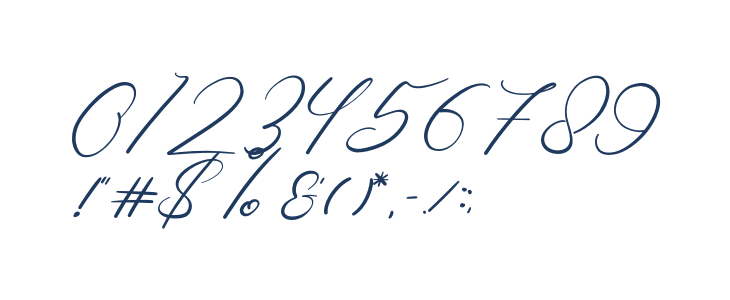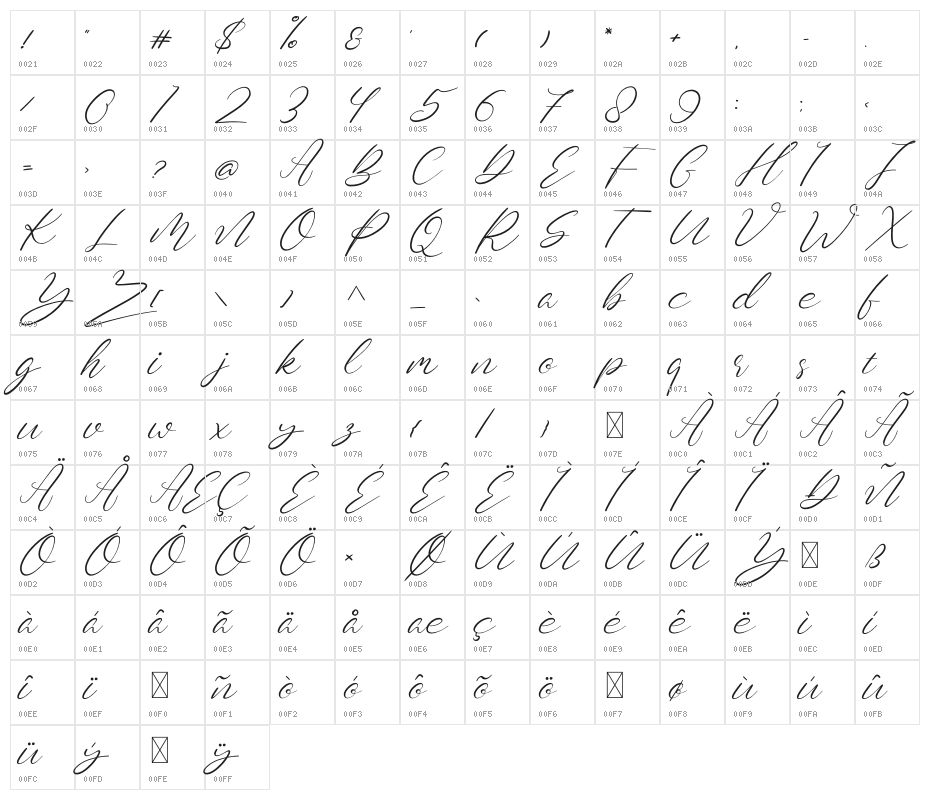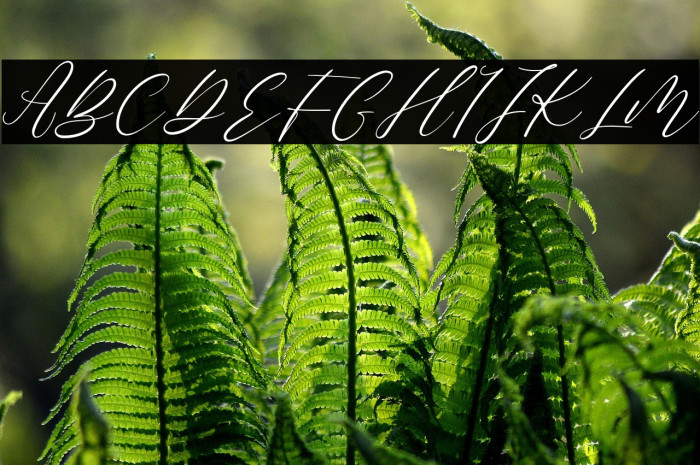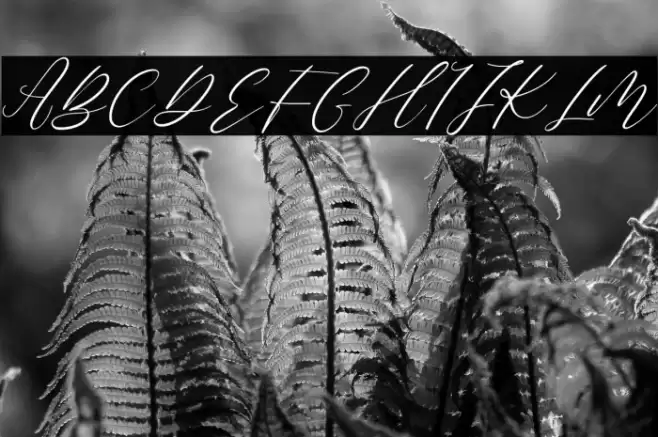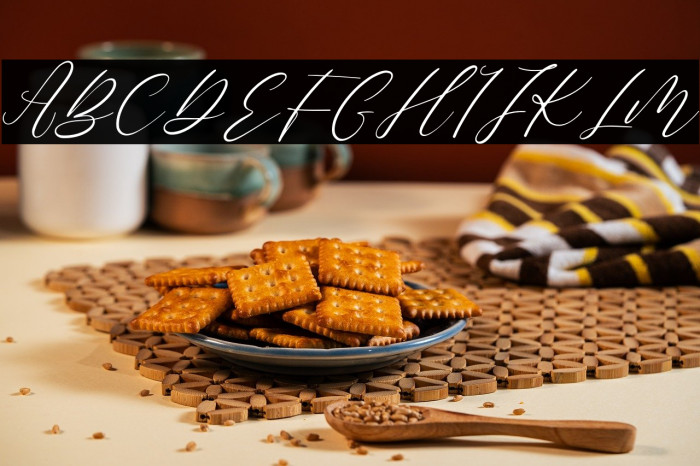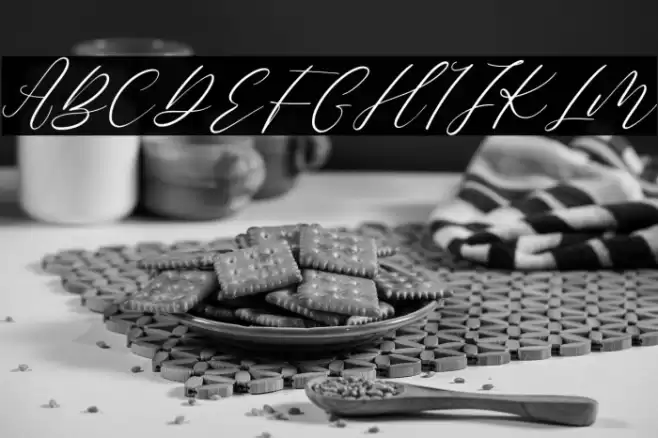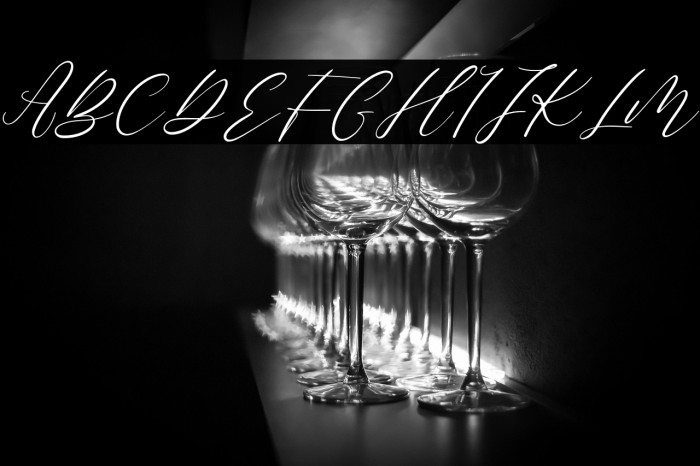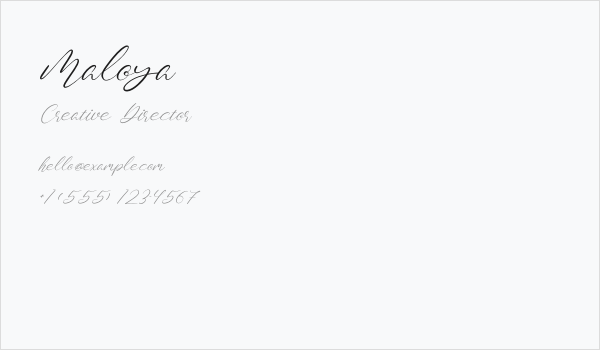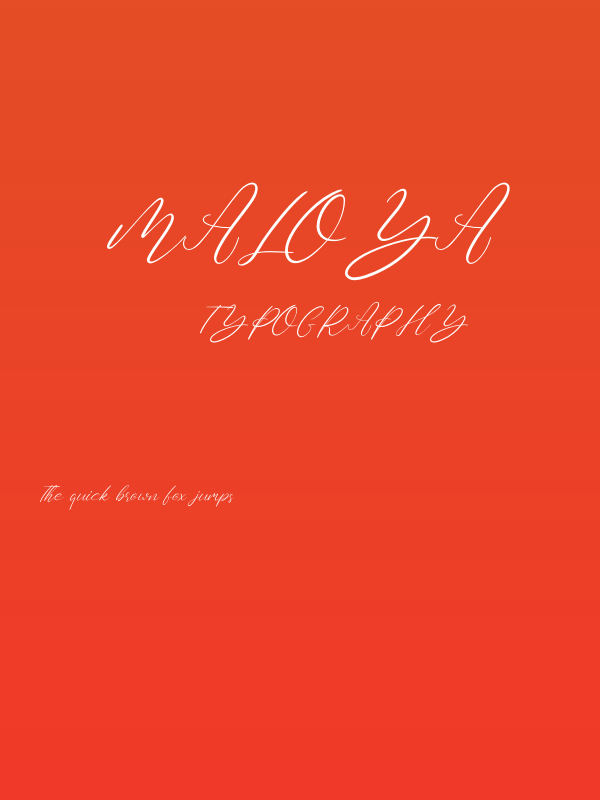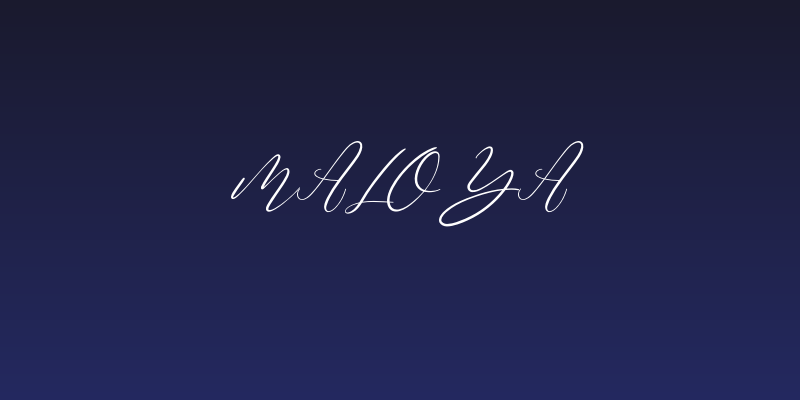
Maloya Font
Maloya Description
This elegant script font features a flowing, cursive style with smooth, continuous strokes that mimic the fluidity of handwriting. The uppercase letters are characterized by their graceful loops and swirls, adding a touch of sophistication and charm. The lowercase letters maintain a consistent slant and are slightly more compact, enhancing readability while preserving the font's artistic flair. The numerals are designed with a similar aesthetic, ensuring a cohesive look across all characters. Special characters are thoughtfully integrated, maintaining the font's overall elegance and style. This font is perfect for projects that require a personal, handwritten touch, such as invitations, greeting cards, and branding materials.
| Proposed Projects | Ideal for wedding invitations, personal branding, greeting cards, and elegant stationery. |